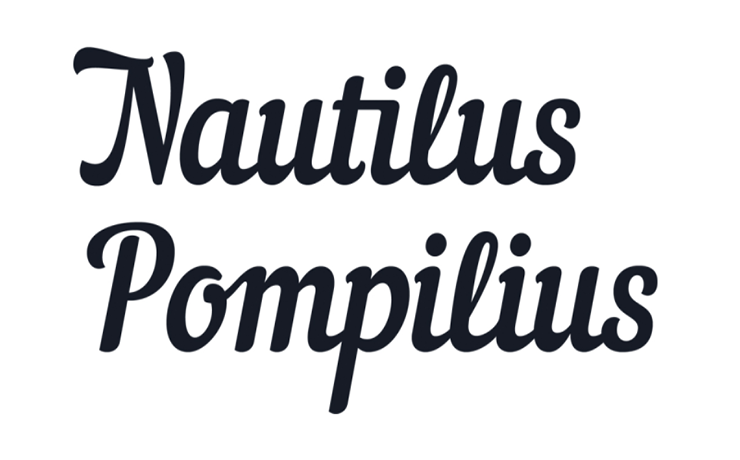
Whether you need a clean, up-to-date script for your logo or website, Nautilus Pompilius Font will do just that. Check out the unusual, professional design, which includes the best soft curves and antique characters.
A famous fonts foundry called Punk You Brands takes the charge of designing it and releasing it primarily.
This typeface is popular Google fonts that are really good for their copy and paste function. It uses valuable smooth contrast shapes to create typeface designs.
It’s a great font that can be easily used with other script fonts to create some great design net sites, headings, logos, posters, and many more.
Style:Modern, Script, Brush
Nautilus Pompilius Font comprises only a single style that possesses Open Type file format. It will provide your design with a classical but also unique look when you use it.